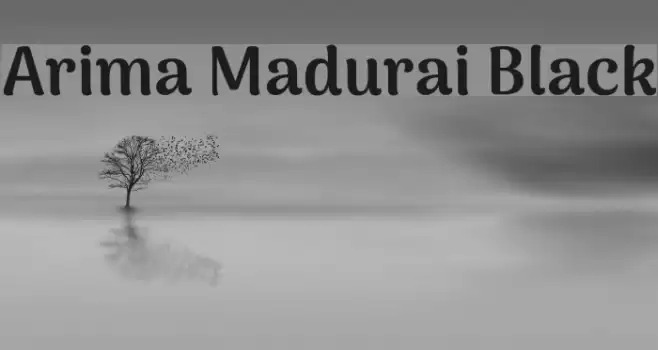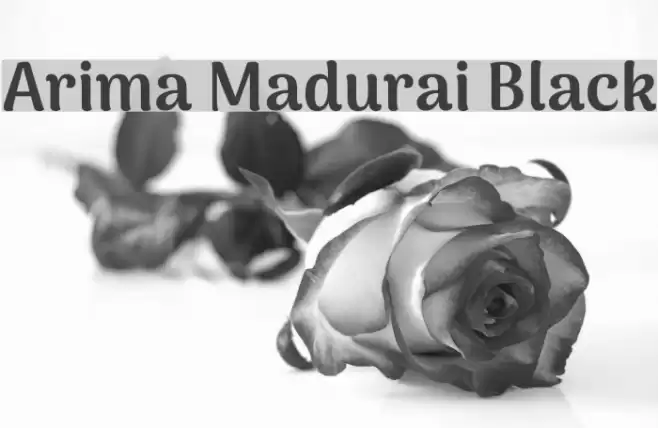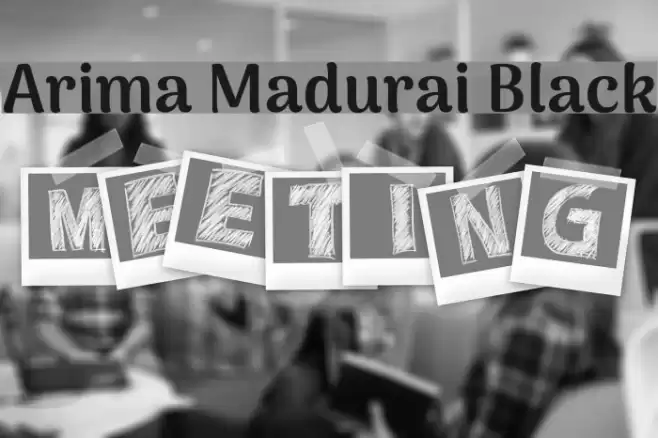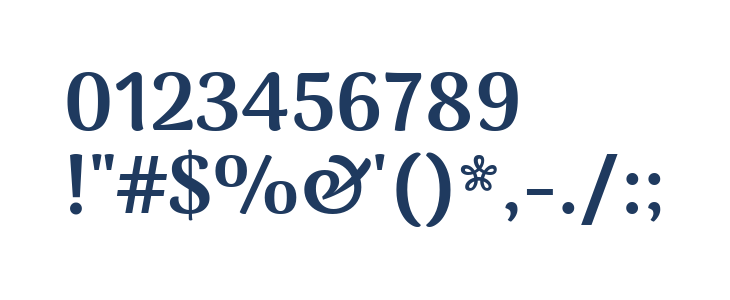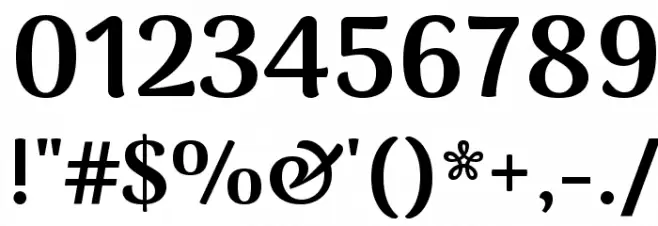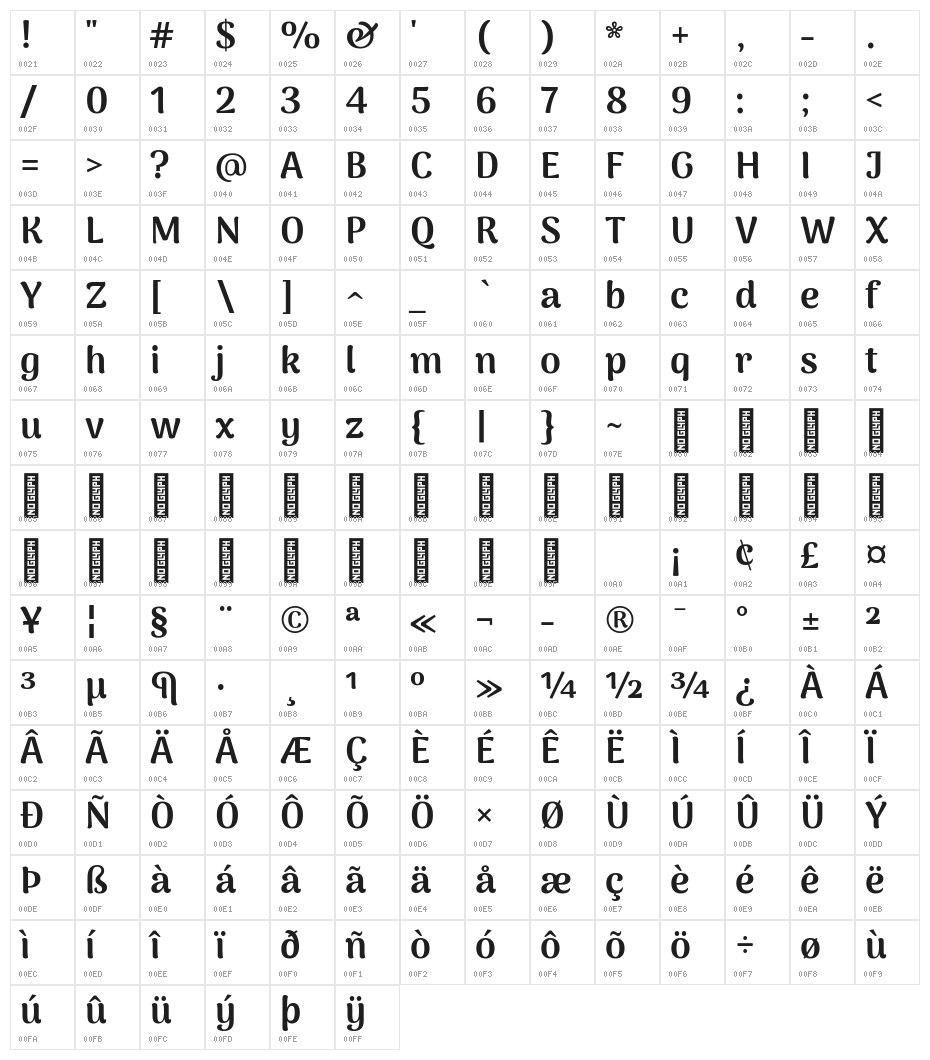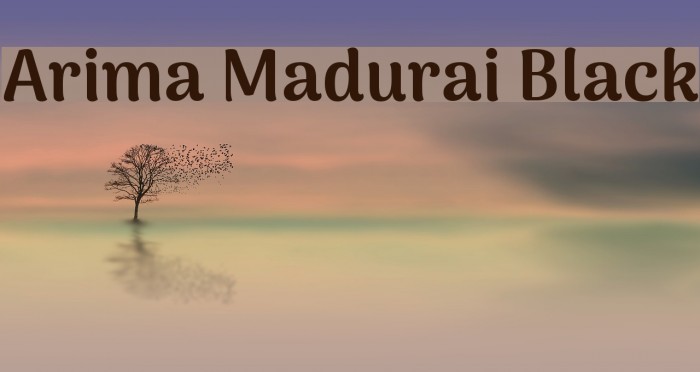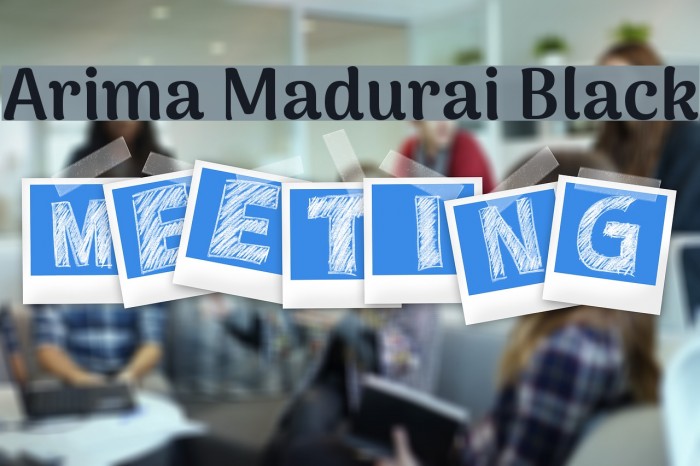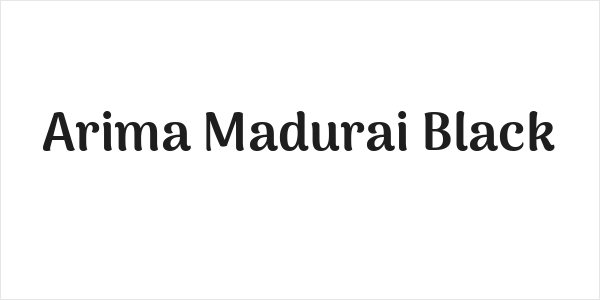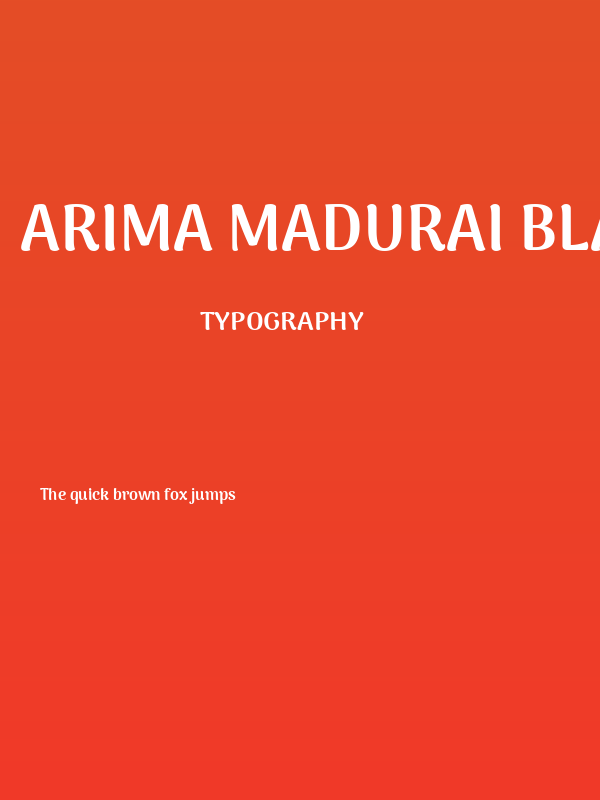
Arima Madurai Black Font
Arima Madurai Black Description
This font features a bold and playful style with rounded edges and a friendly appearance. The characters are well-defined with a moderate weight that gives them a substantial presence on the page. The uppercase letters are slightly taller than average, providing a sense of authority, while the lowercase letters maintain a consistent flow with gentle curves. The numerals are clear and easy to read, making them suitable for various applications. Special characters are distinct and harmonize well with the overall design, ensuring versatility in usage.
A bold, playful font with rounded edges and a friendly appearance from Uncategorized fonts.